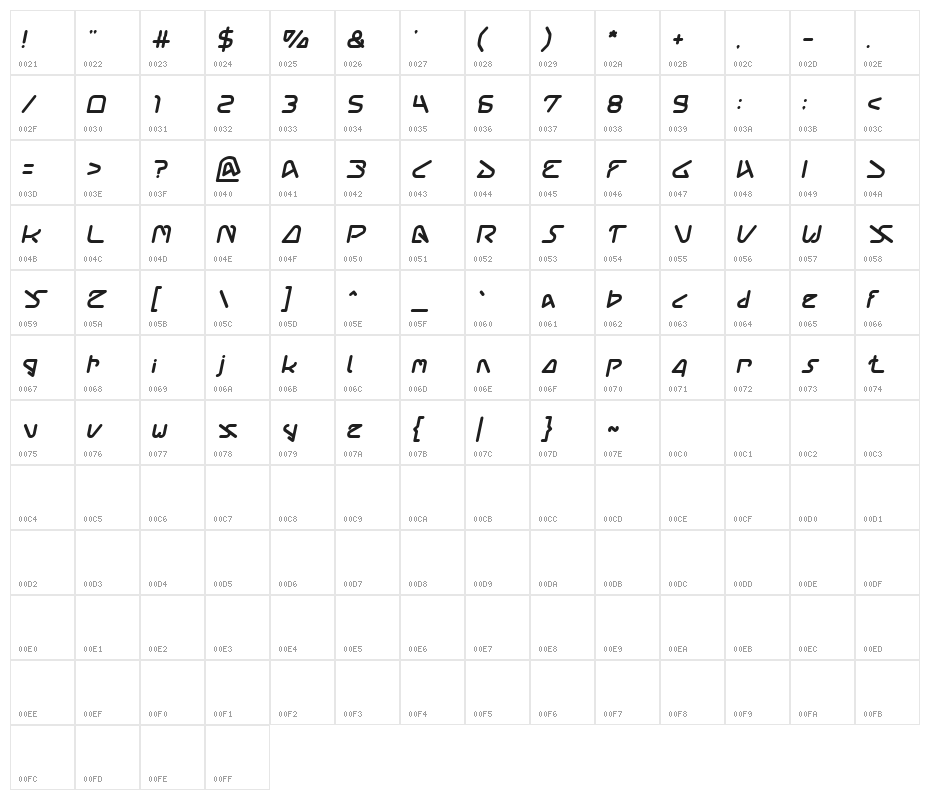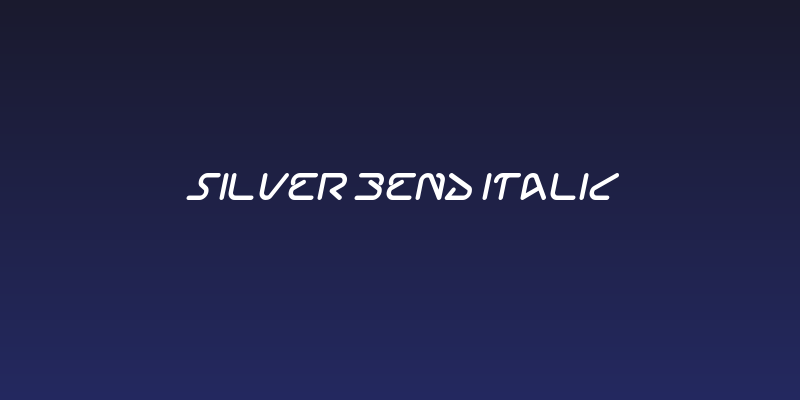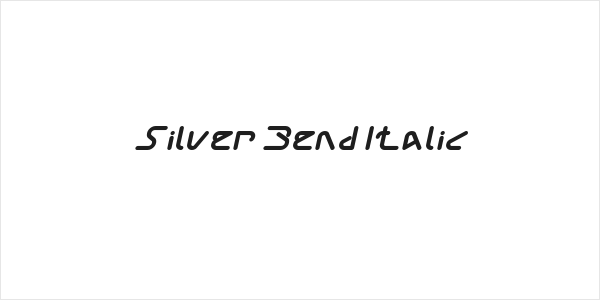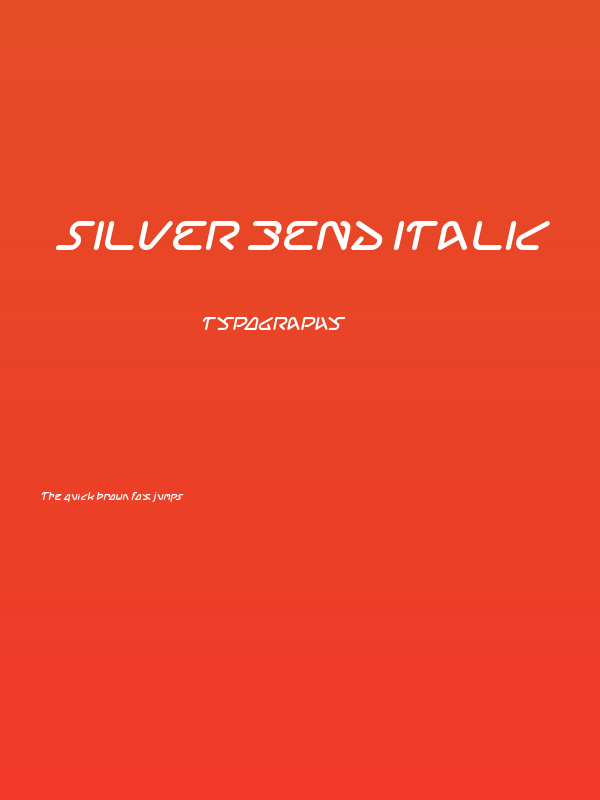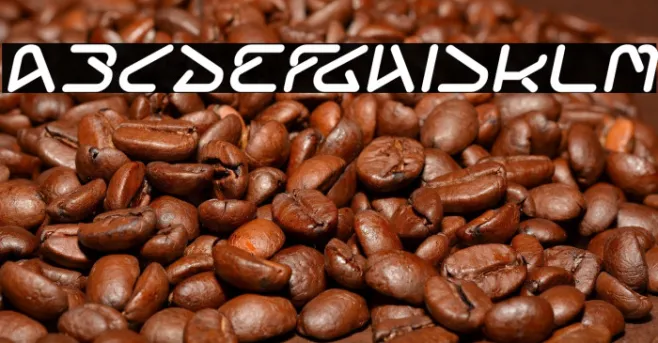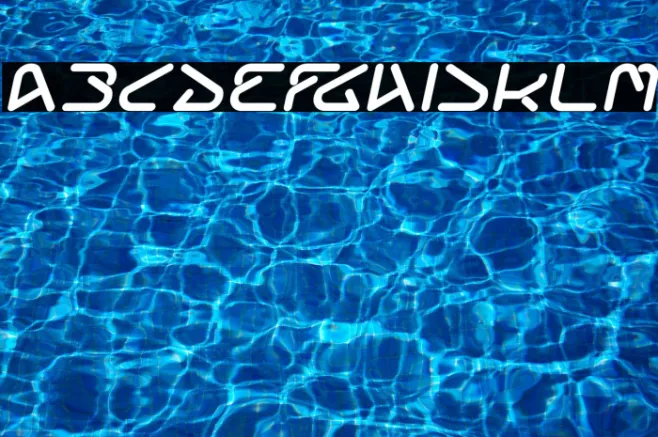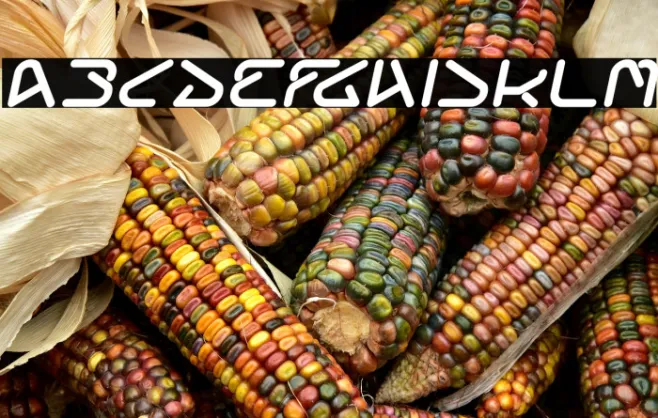
Silver Bend Italic Font
Silver Bend Italic Description
This font features a unique, futuristic design with a distinct italic slant. The characters are composed of bold, rounded strokes that give a sense of fluidity and motion. The uppercase and lowercase letters maintain a consistent style, with smooth curves and sharp angles that create a dynamic appearance. The numbers and special characters are designed to match the overall aesthetic, ensuring a cohesive look across all text. The font's modern and innovative style makes it suitable for projects that require a contemporary and eye-catching typeface.
| Proposed Projects | Ideal for sci-fi themed designs, technology branding, modern advertising, and innovative product packaging. |